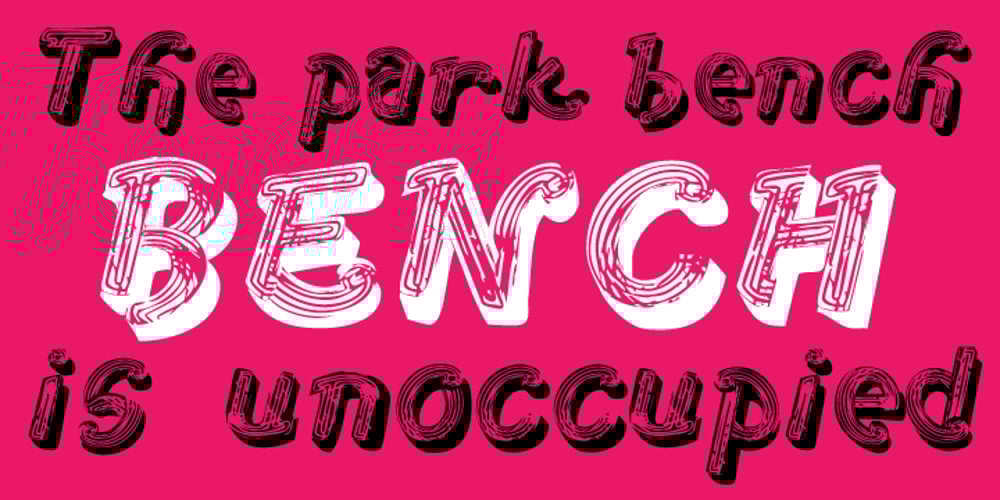
1st Ave Font Family was designed by Pablo A. Medina and published by Design is Culture. 1st Ave contains 1 styles and family package options. 1st Ave is the most experimental of my typefaces. I took a picture of a metal and neon sign in the East Village of New York City. These signs are slowly being replaced by LED and LCD displays, but if you look hard, you can still find quite a few in the city. The signs give a mid 20th century feel to the city. To design 1st Ave, I took a picture of the sign, scanned it and increased the contrast in Photoshop so that the photographic forms became line art. There weren’t enough letterforms in the sign to create the whole alphabet, so I cut up the strokes and collaged them back together to finish the entire alphabet. Important Note: 1st Ave is an experimental typeface and is not compatible with certain software such as Microsoft Word.